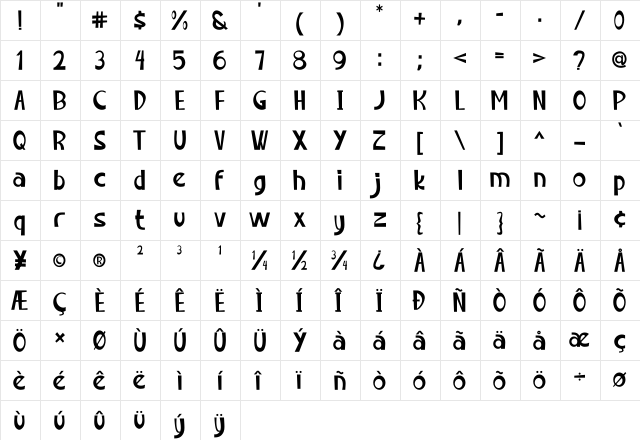
Chillok Regular
Design Context for Chillok Typeface
Chillok is a composed and adaptable typeface that performs quietly and consistently across a wide range of design contexts.
Pro Tip: Pair Chillok with a font of contrasting weight or personality to build a more expressive typographic hierarchy.